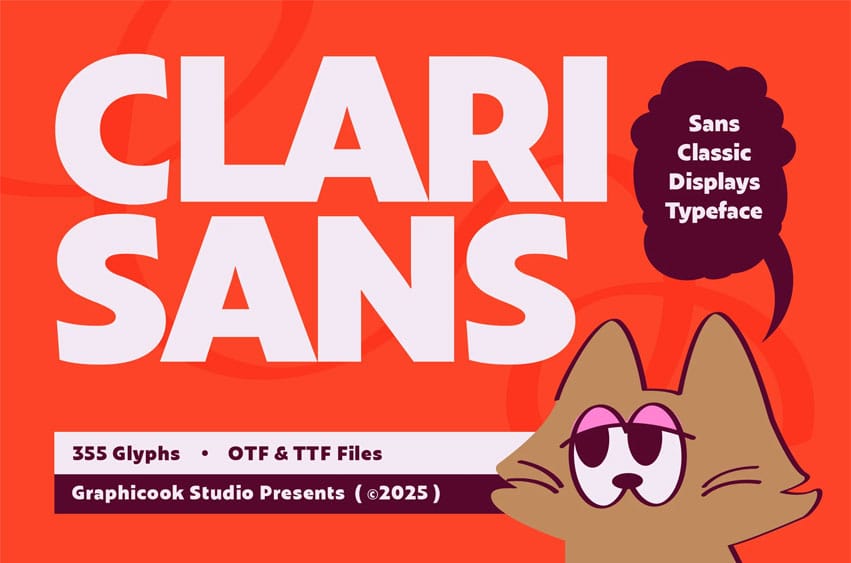
Clarisans Font is a modern sans display font with a bold and edgy style. Its rounded letterforms and versatile design make it an excellent choice for both headlines and body text
Clarisans is perfect for headlines, logotypes, magazines, packaging, quotes, movies, games, cover albums, book covers, and flyers, It’s a perfect solution for creating eye-catching designs that stand out in any context.